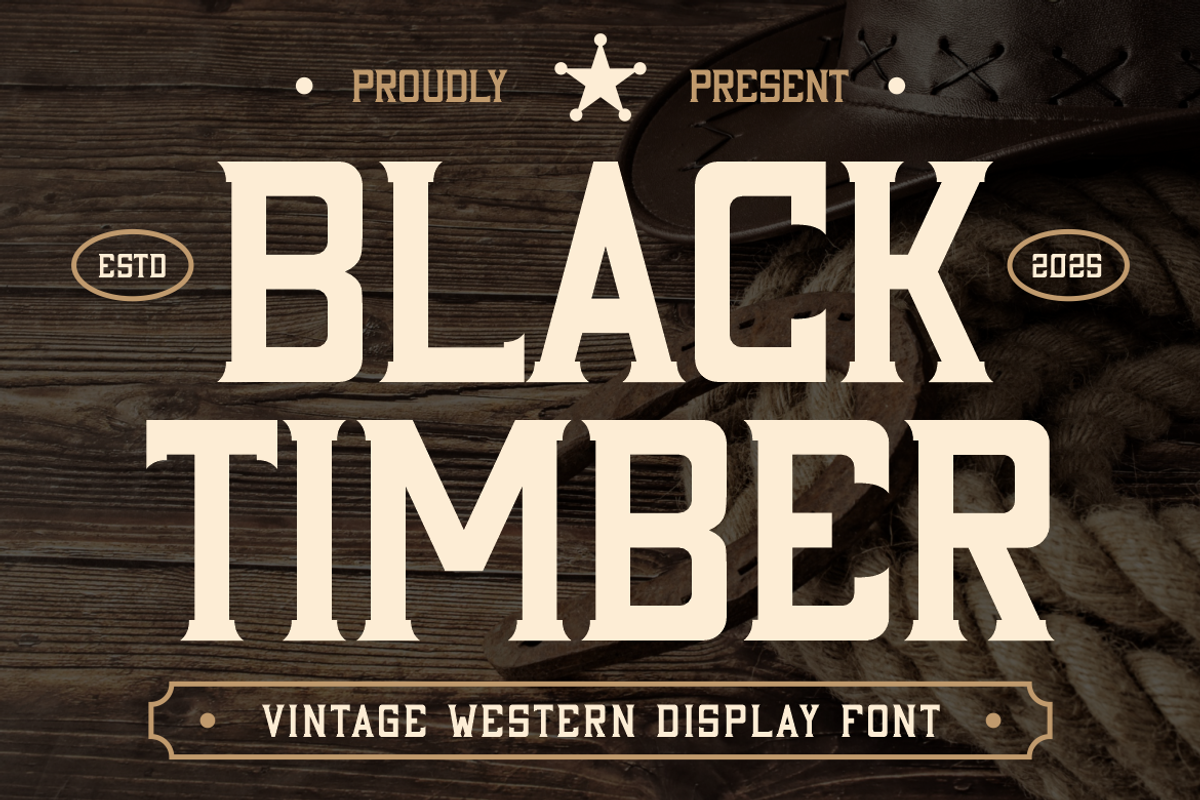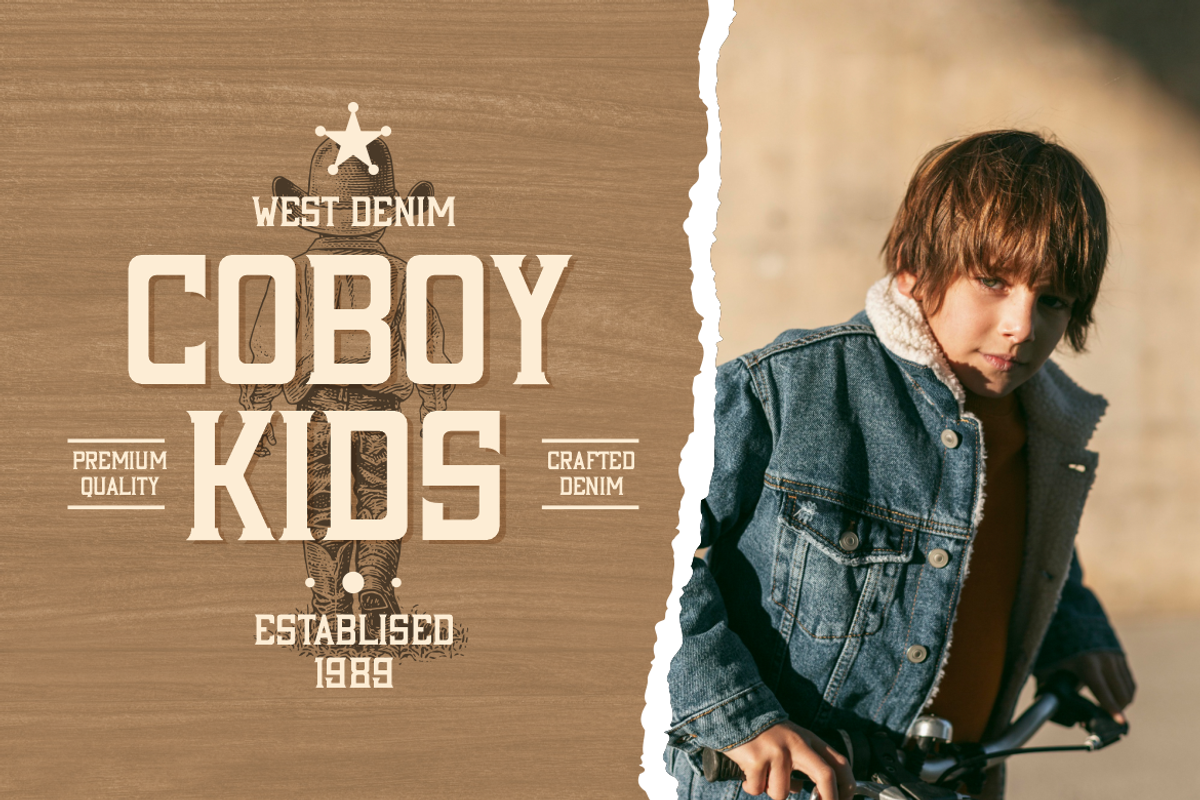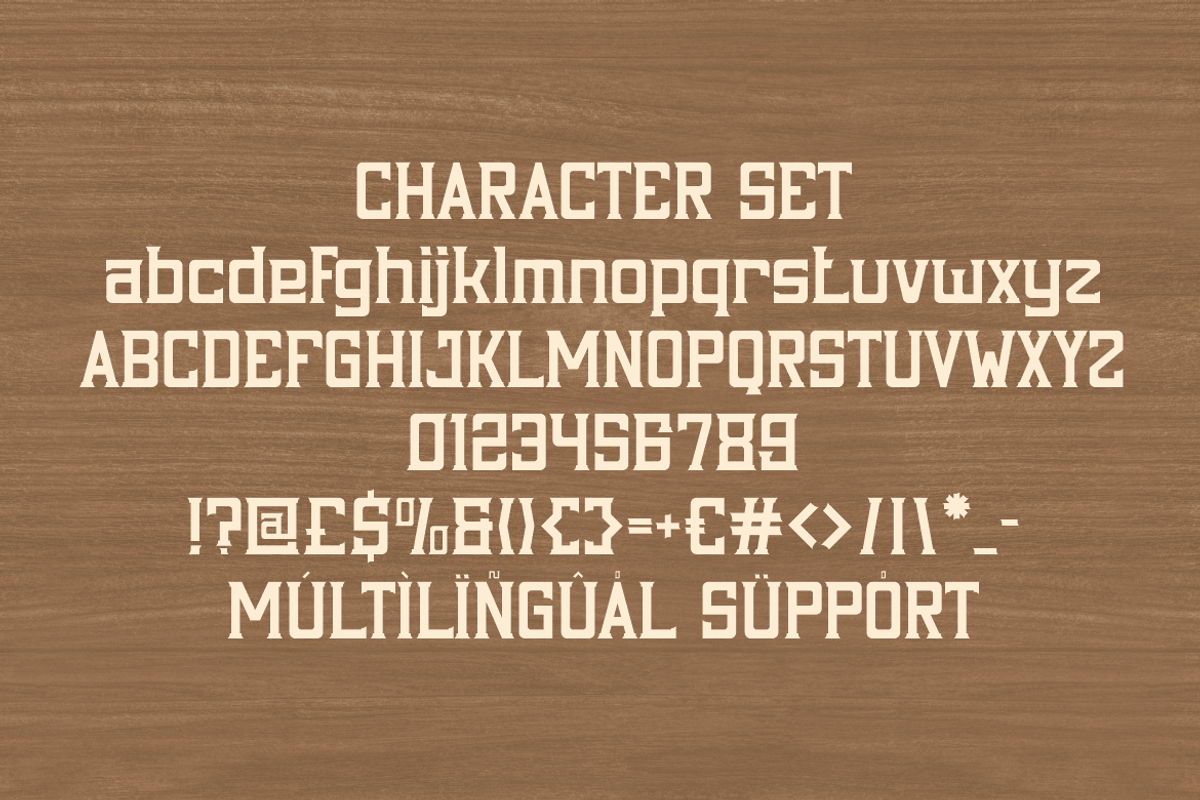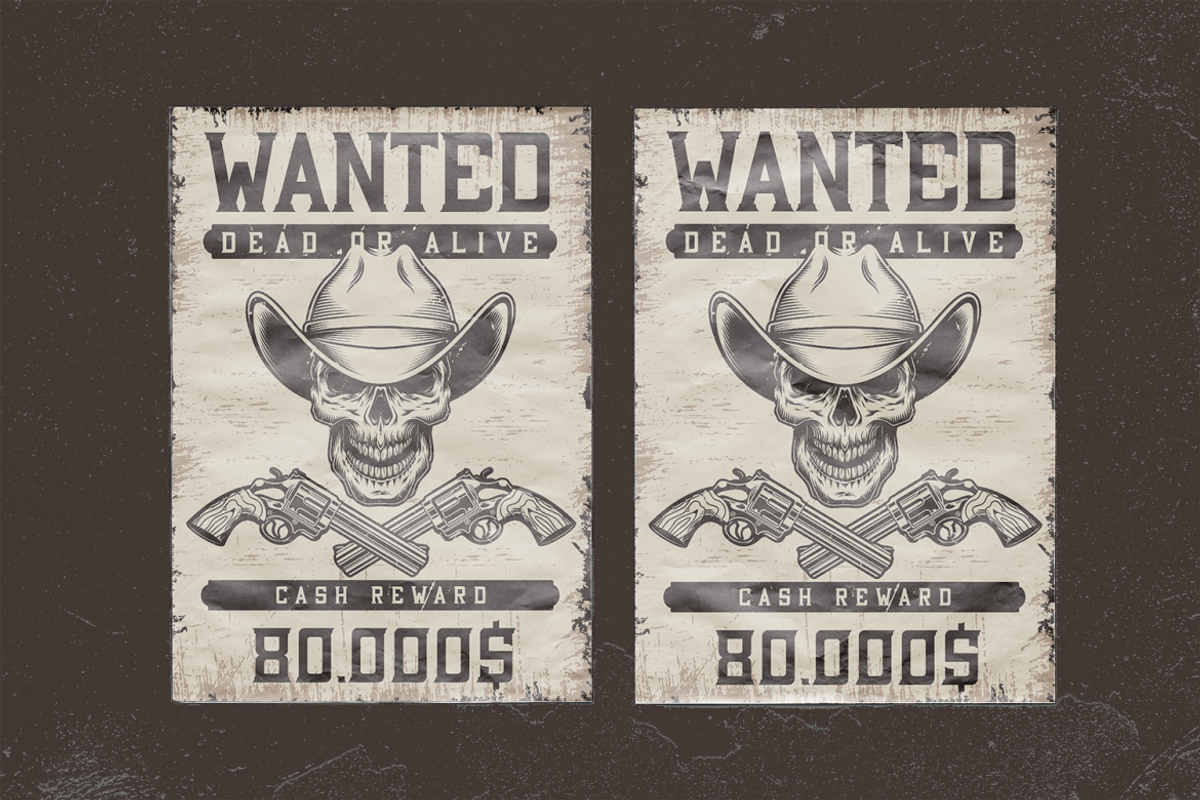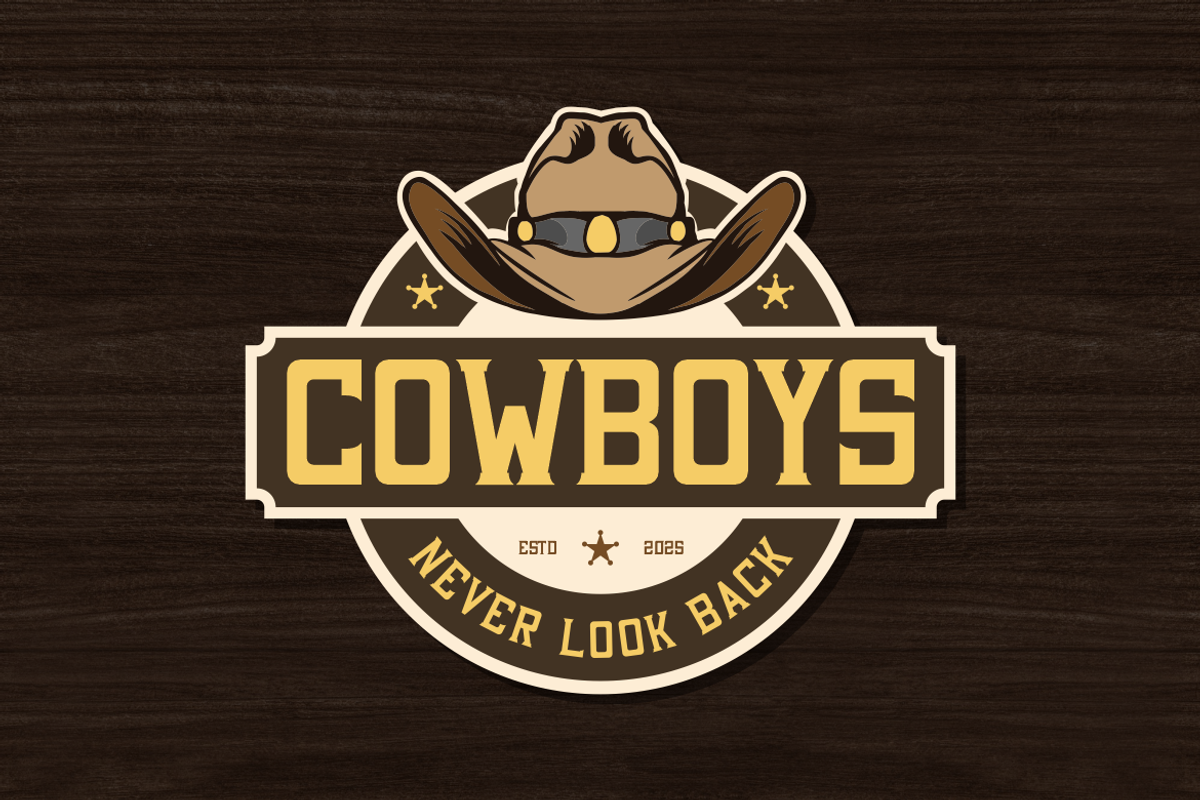
Black Timber Vintage Western Display
Black Timber Vintage Western Display Font is a bold and rugged typeface inspired by the typography of the Old West. Each letter is crafted with strong, geometric forms and sturdy serifs that evoke the feel of vintage saloon signs and frontier branding irons. The tall, blocky structure provides excellent legibility, while the sharp edges and subtle cuts add a handcrafted, rustic detail. The balance between heavy strokes and precise angles gives this font a timeless look that blends tradition with a professional, high-quality finish. Black Timber Vintage Western Display Font captures the boldness and authenticity of western heritage in a design-ready format.
Perfect for logos, packaging, posters, apparel, and headline designs, this font delivers a strong visual impact wherever it’s used. Its vintage yet refined appearance makes it ideal for brands seeking an adventurous, classic, or handcrafted identity. Whether you’re designing for a cowboy brand, a denim label, a film title, or a retro café, Black Timber Vintage Western Display Font will add strength and authenticity to your project. With its western elegance and timeless appeal, it’s a perfect choice for anyone who values bold design with a nostalgic edge.